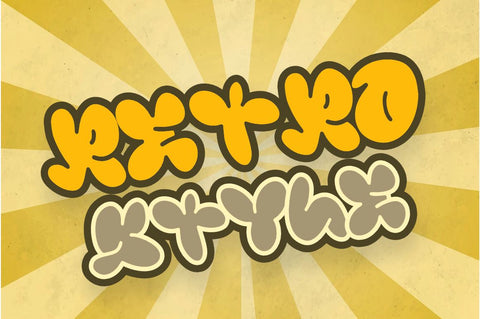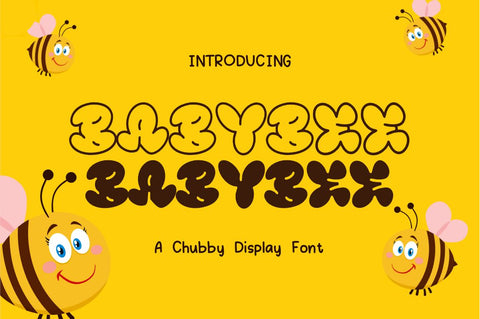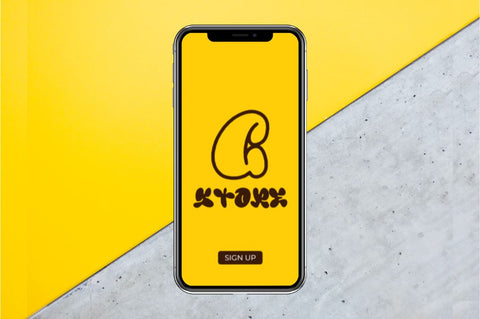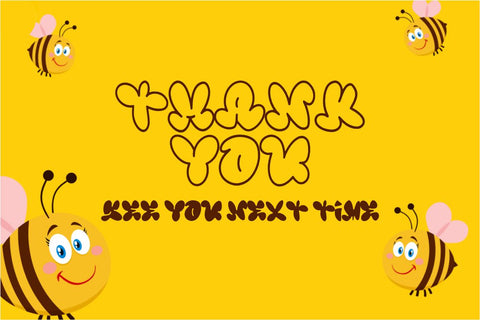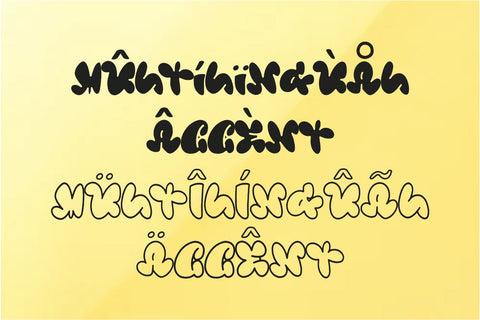
Babybee - a Chubby Display Font
Babybee is a cute and cubby display font. with the shape of a glyph that is spoiled by the original hand drawn. This font is very compatible. This font is suitable for Branding, children's products, food, t-shirts, girls, etc.